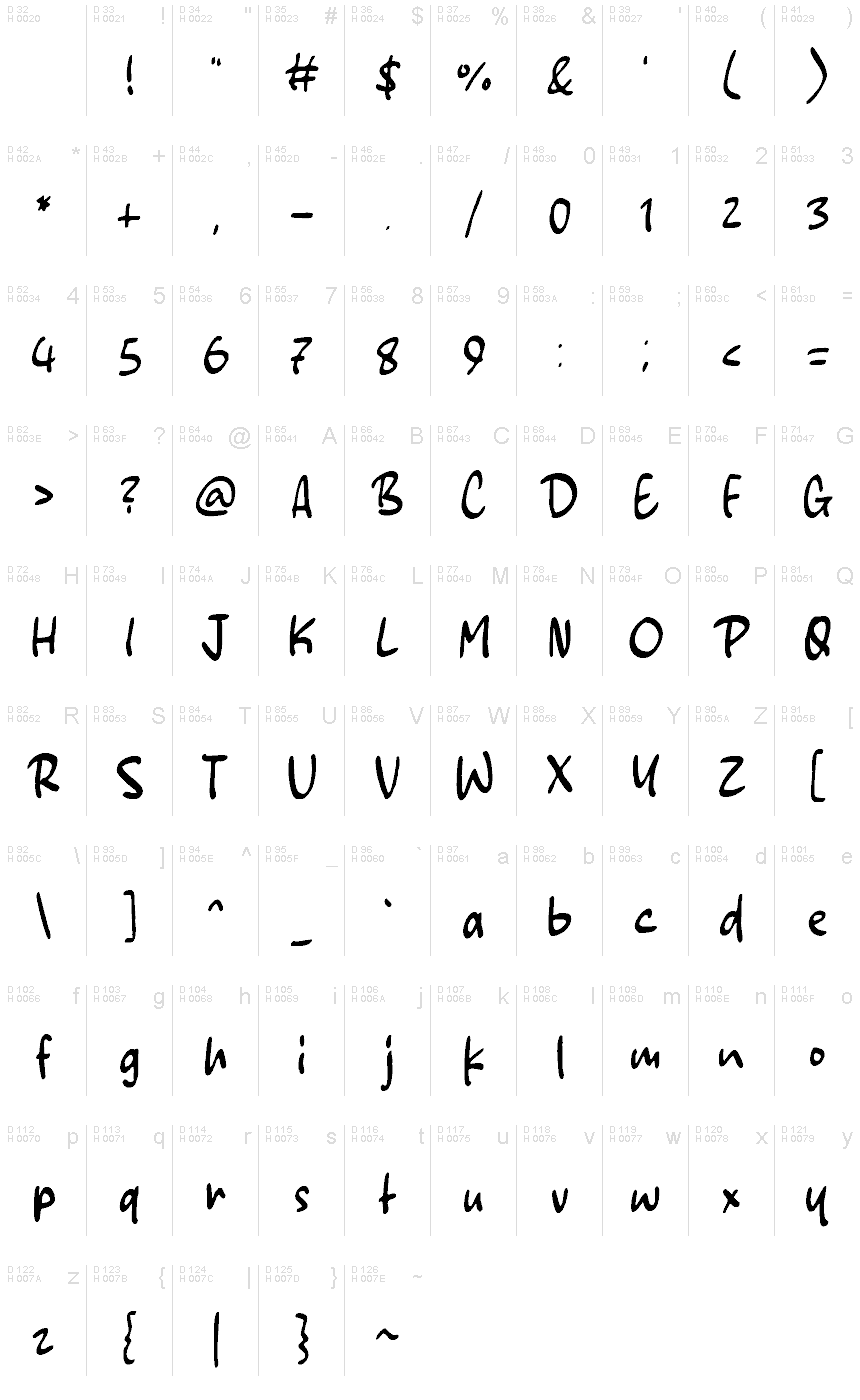
Chanky
Chanky font is a free handwritten font designed by MJType with a modern, casual feel. Its letters are expressive with a slightly relaxed aesthetic that gives off an authentic look. The natural variations in the line thickness give it dynamism and personality not usually found in digital typefaces.